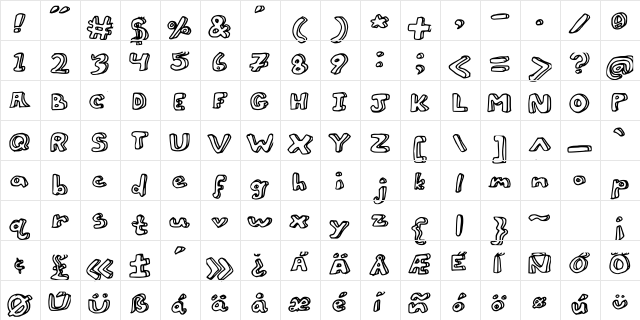
Playdoh Snake Medium
Design Context for Playdoh Snake Typeface
Playdoh Snake is a composed and adaptable typeface that performs quietly and consistently across a wide range of design contexts.